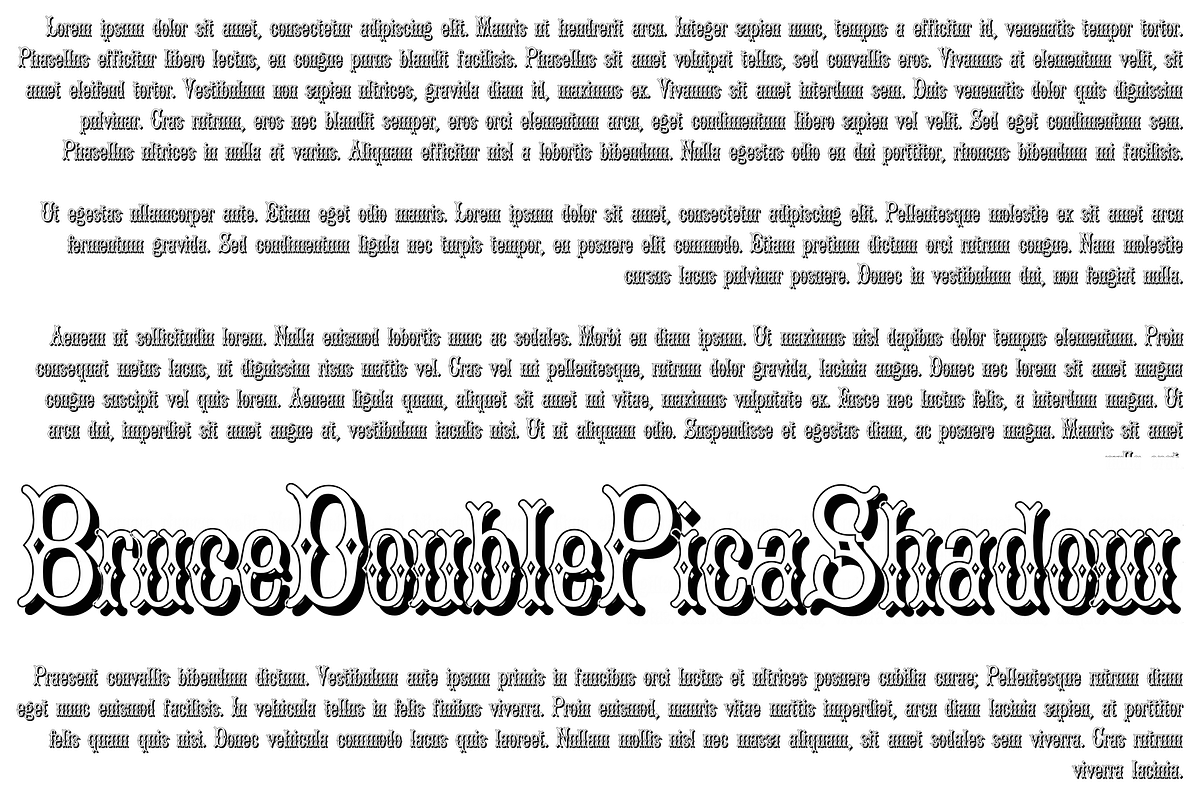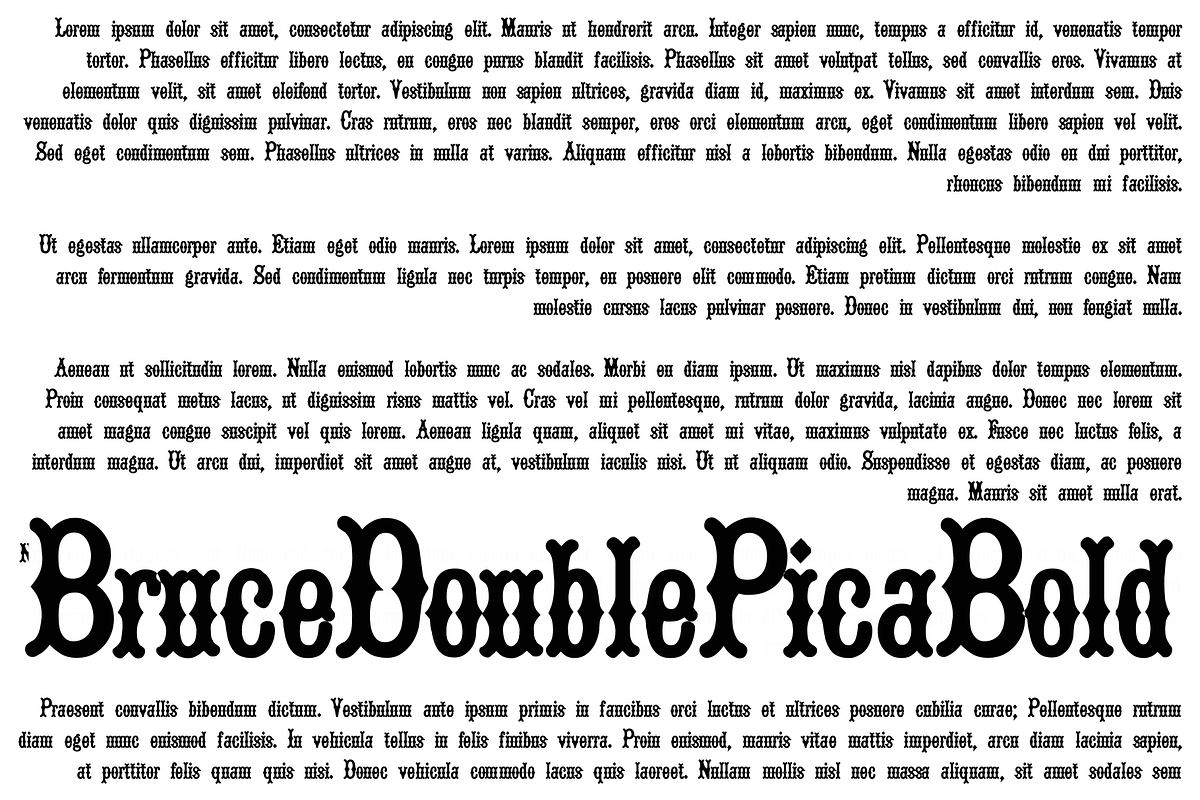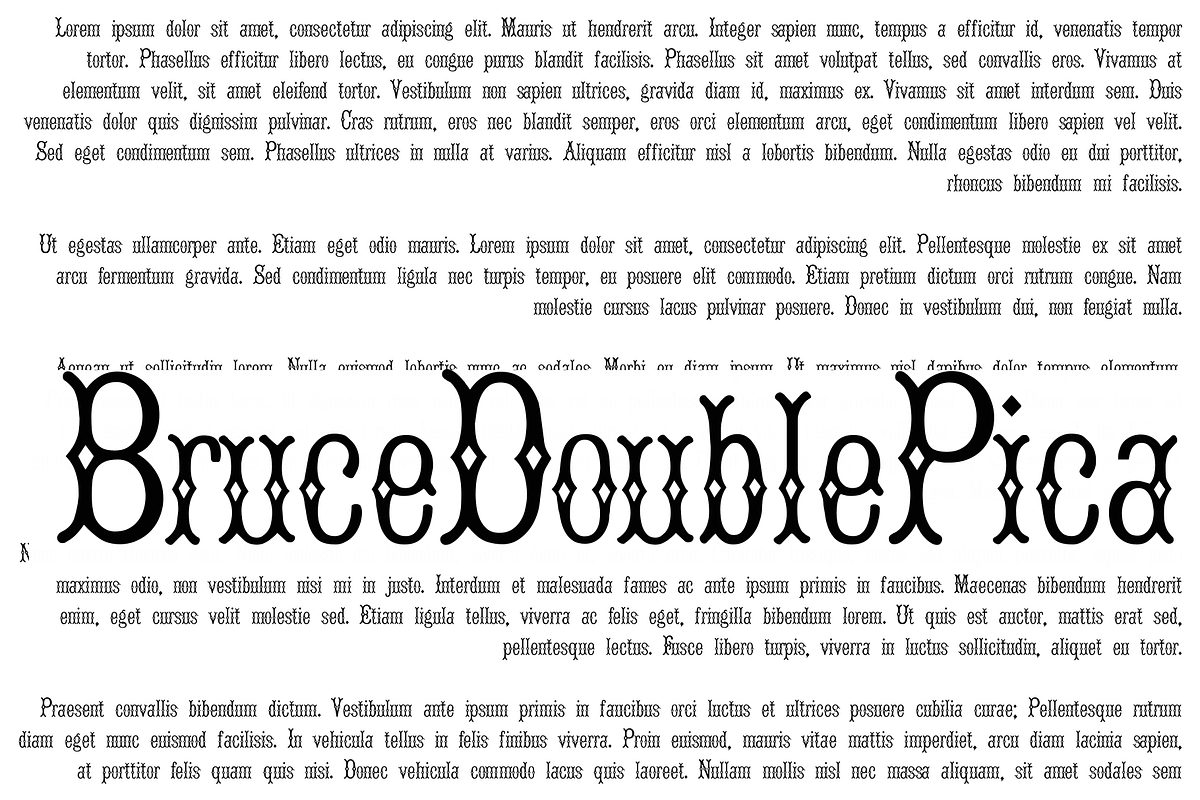
Bruce Double Pica PACK
Designed by Paulo W, Bruce Double Pica is a display and display sans font family. This typeface has three styles and was published by Intellecta Design. A classic revival from the heritage olf extinct (1800’s) George and Bruce Son’s Typefoundry